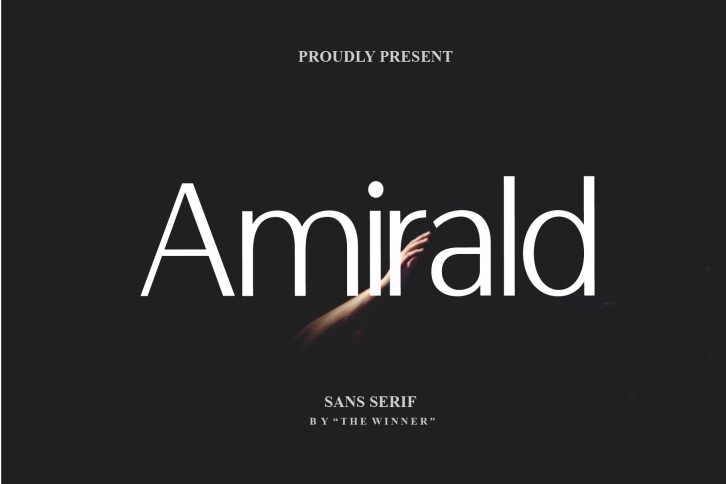
Proudly present Amirald, a very clean sans serif font. It’s perfect for branding, product packaging, invitations, quotes, t-shirts, labels, posters, or any logo you want to develop. Make all your design projects more attractive and take your designs to the next level with Amirald.